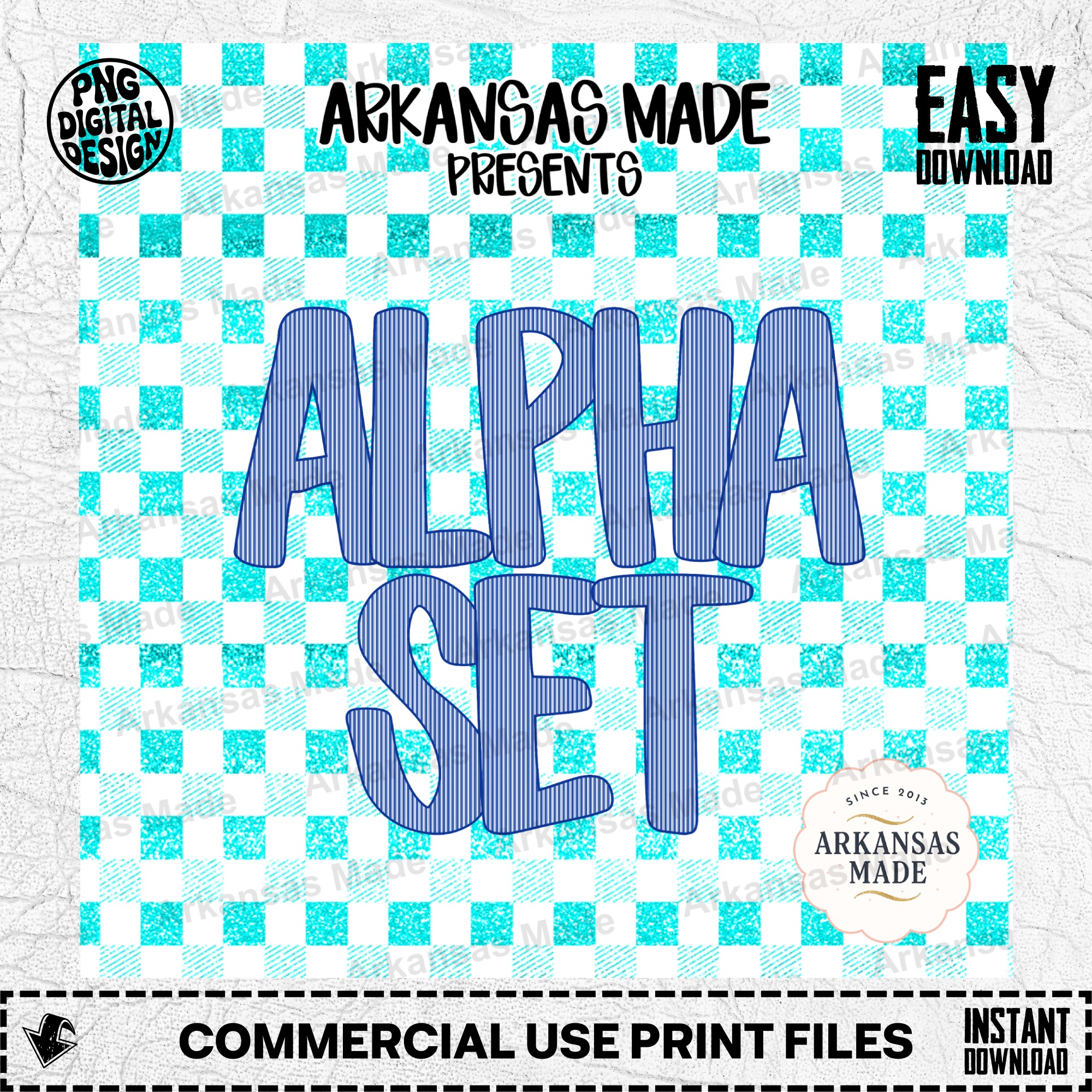
Pinstripe Alpha PNGs, Blue Striped Digital Alphabet Letters, Full A-Z Letter Set, Varsity Style PNG Font for Crafts, Instant Download
Elevate your designs with these bold Pinstripe Alpha PNGs! This digital alphabet letter set is perfect for crafts and personalized projects. Featuring a classic blue striped texture, these versatile PNG letters bring a preppy, collegiate, or sporty touch to any creation. Ideal for DIY crafters, graphic designers, teachers, and small businesses looking to create custom t-shirts, mugs, banners, or digital art. Inspire your next creative venture or design unique gifts with this high-quality, instant download alpha set.